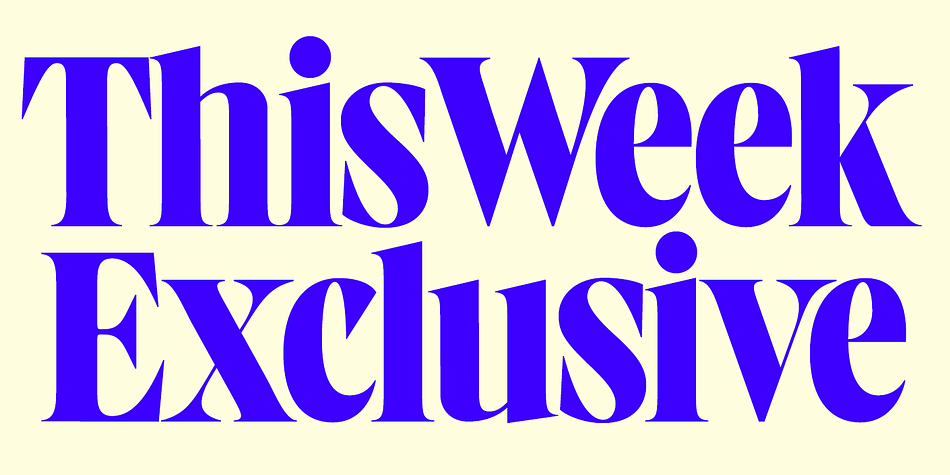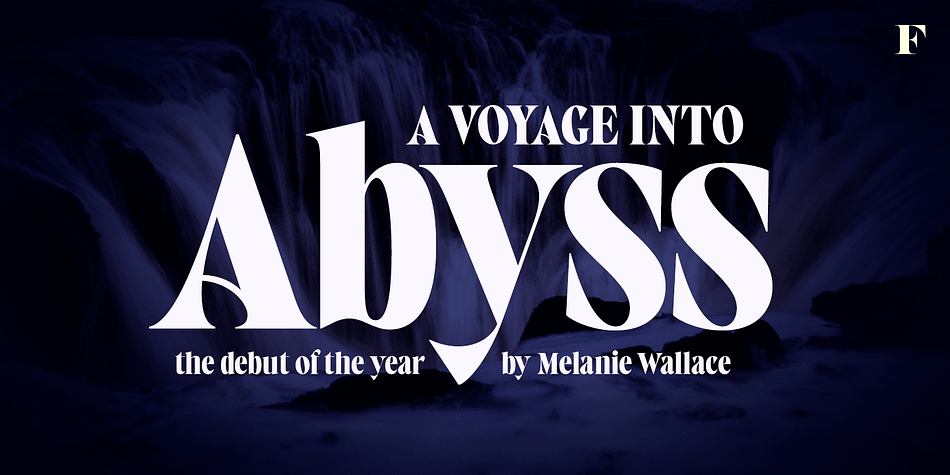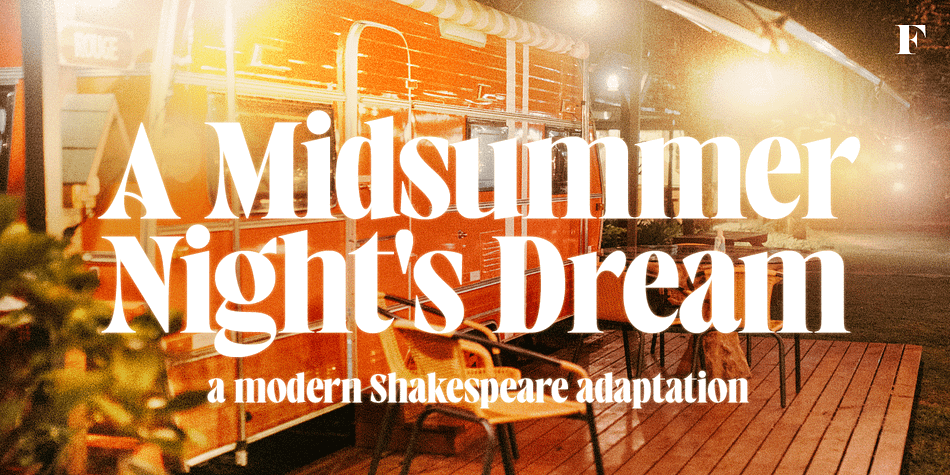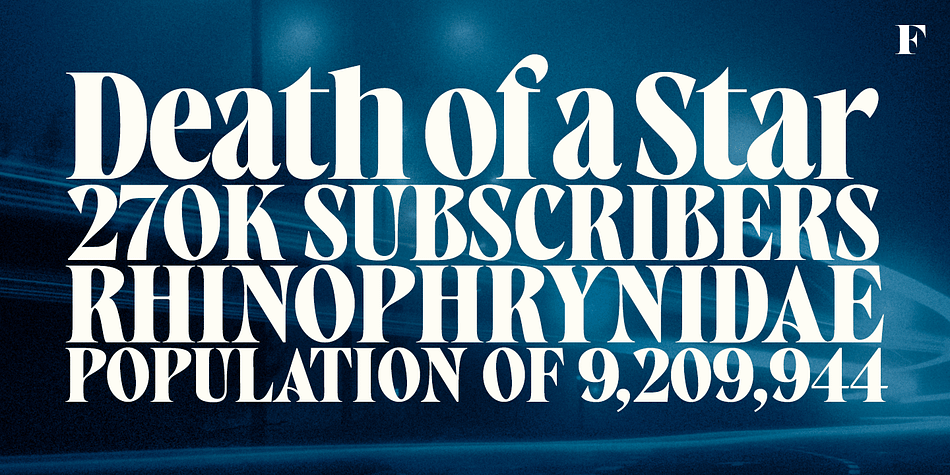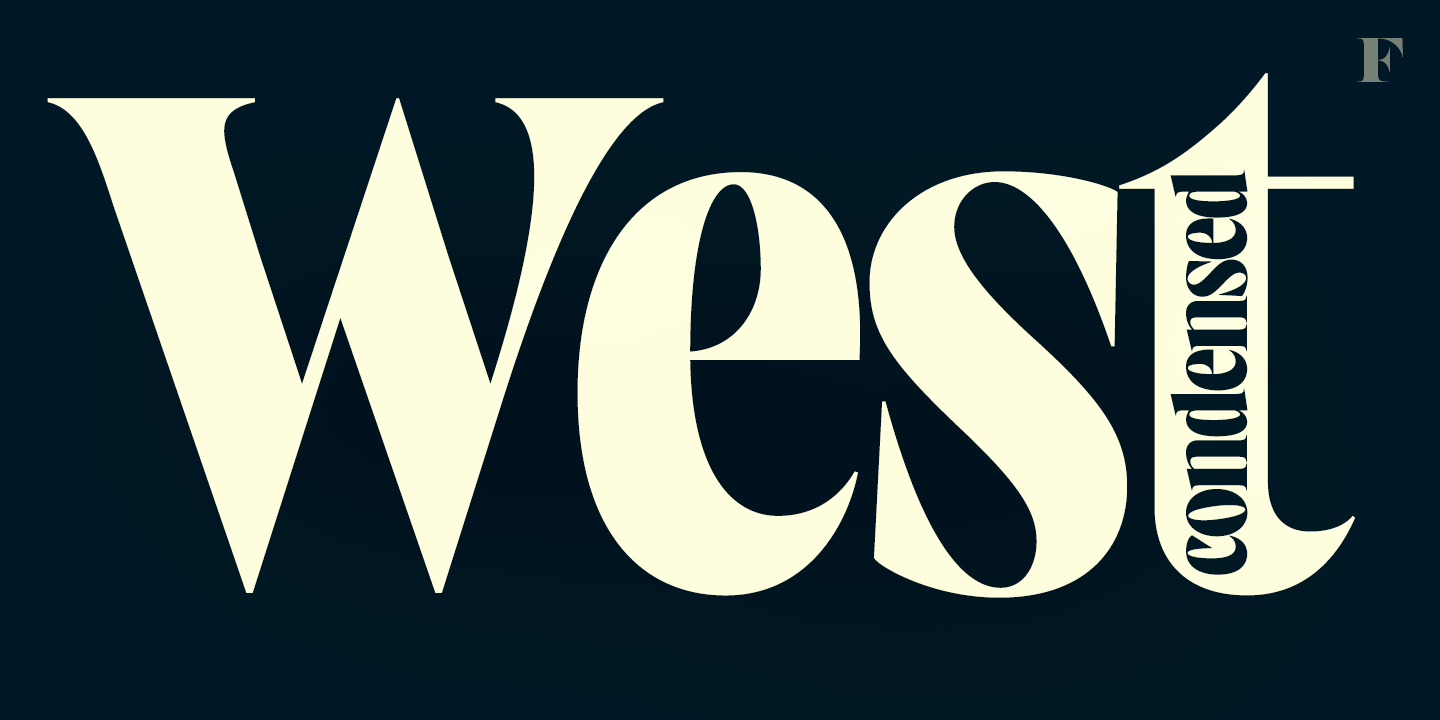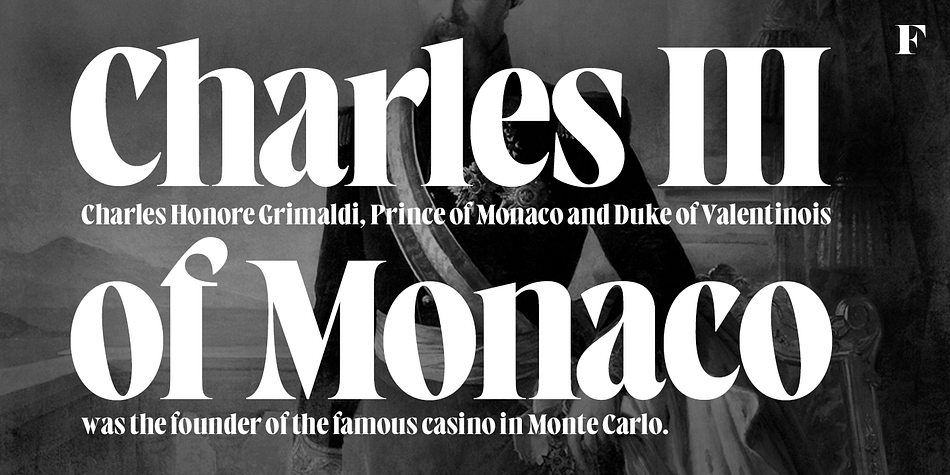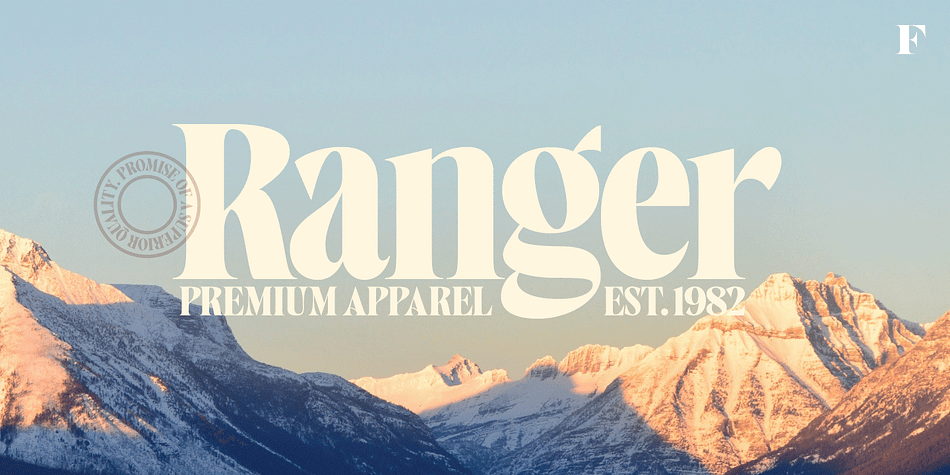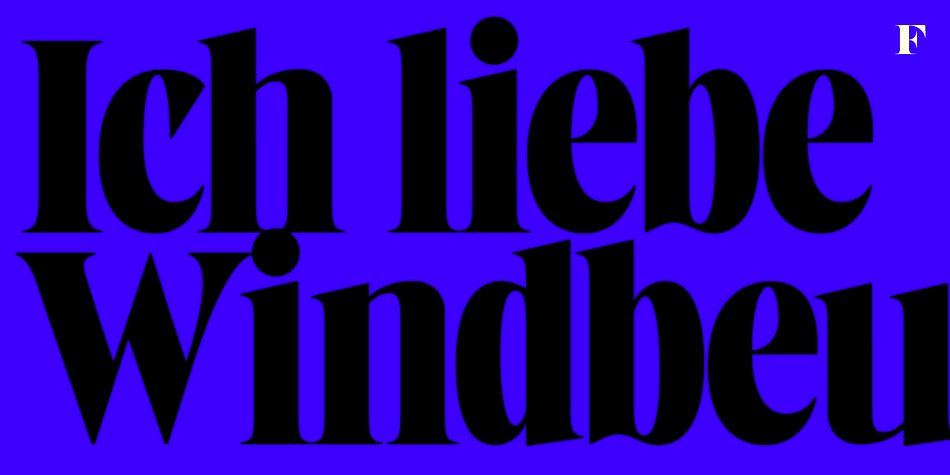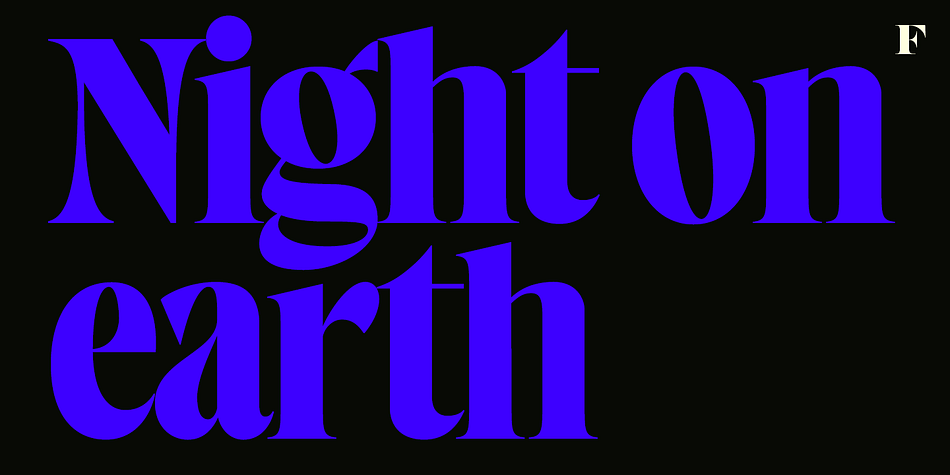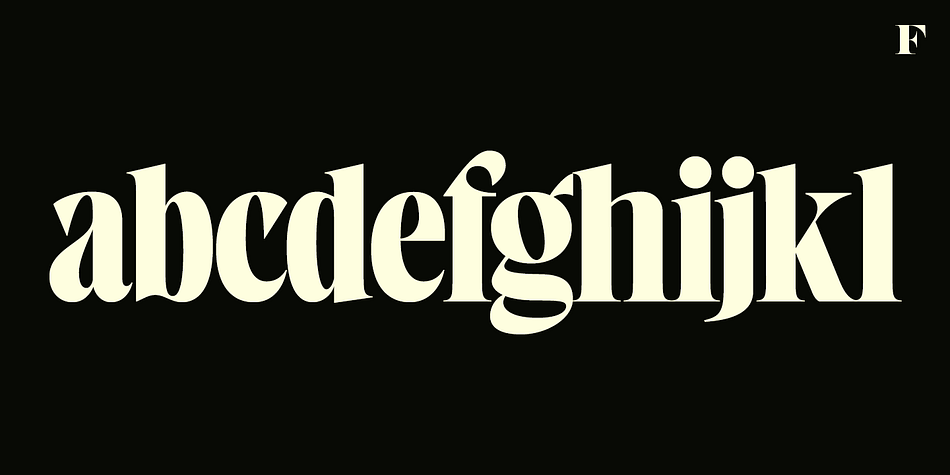
West West
Designed by Emil Bertell, West West is a display serif font family published by Fenotype.
West West is a high-contrast condensed display serif. West West has extra large x-height making it suitable for efficient choice for distinguishable display use such as headlines, packaging, magazines, posters and advertising, among any other. In large sizes, you can also try tighter tracking for maximum impact. With certain of Art Nouveau shapes and massive contrast West West is a great choice anywhere you need a stylish and fashionable touch.